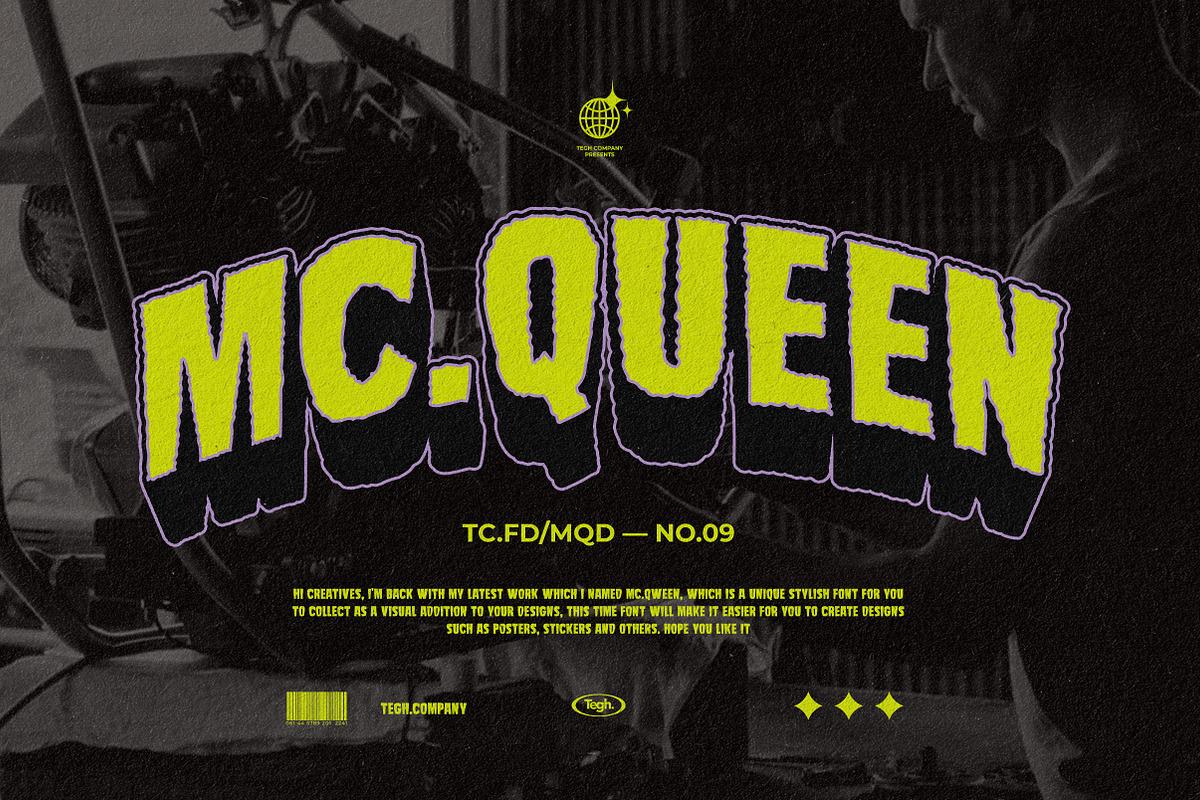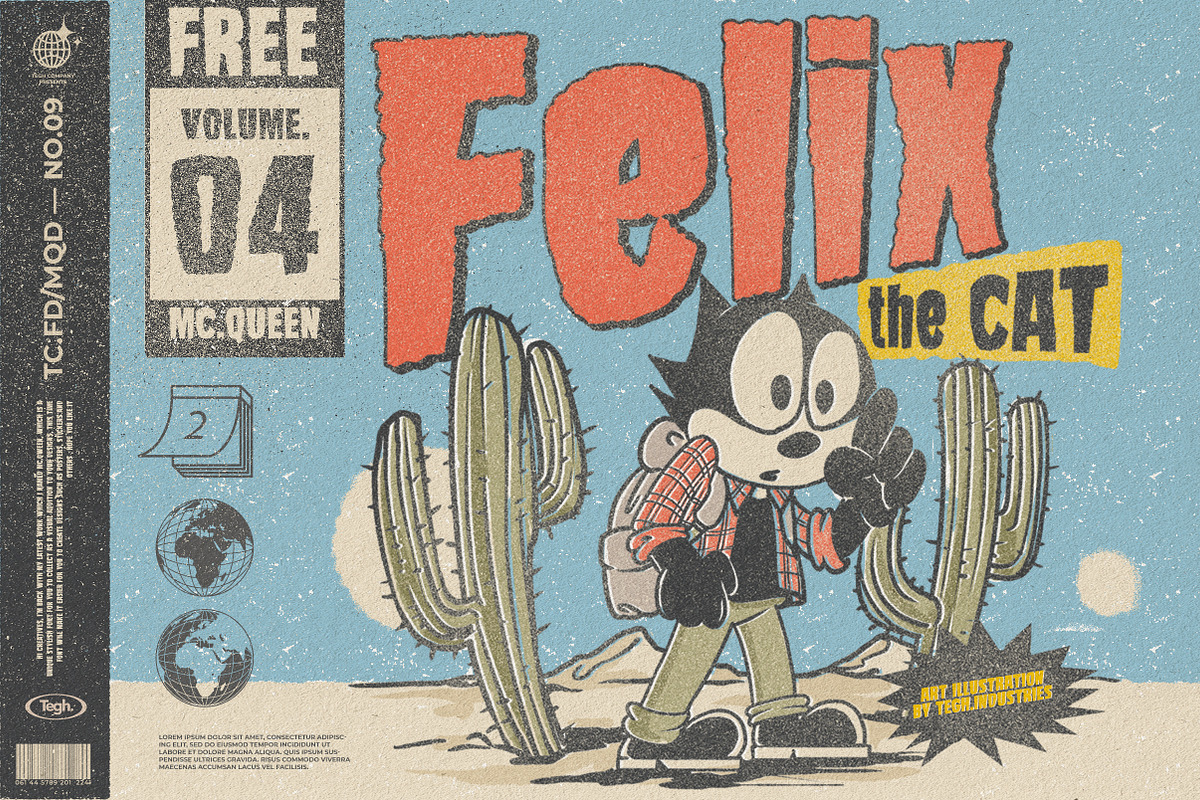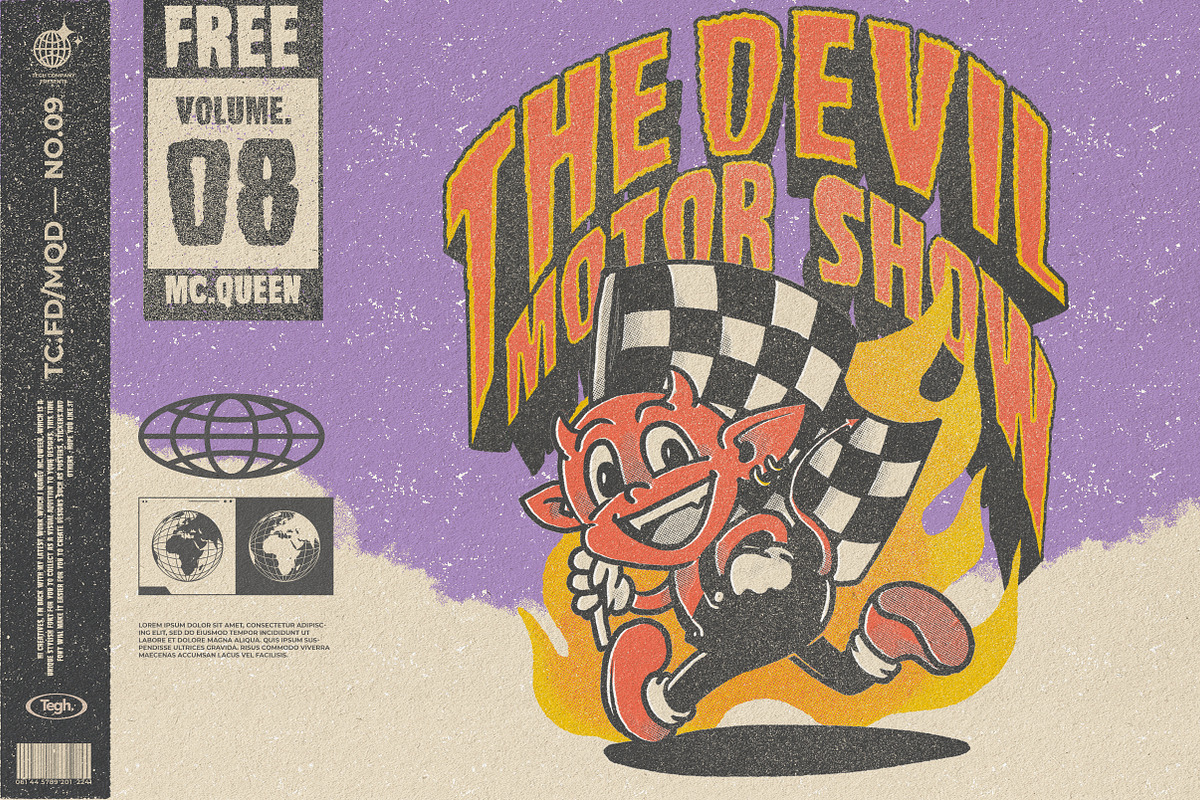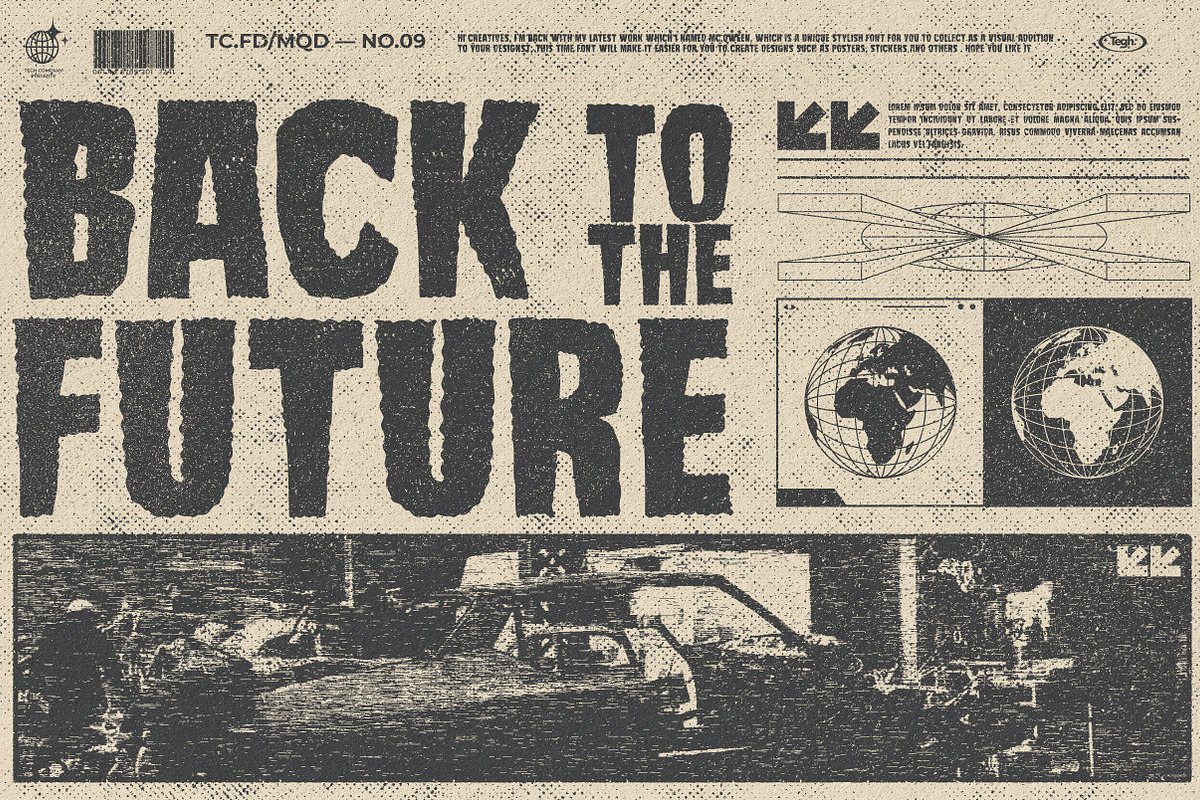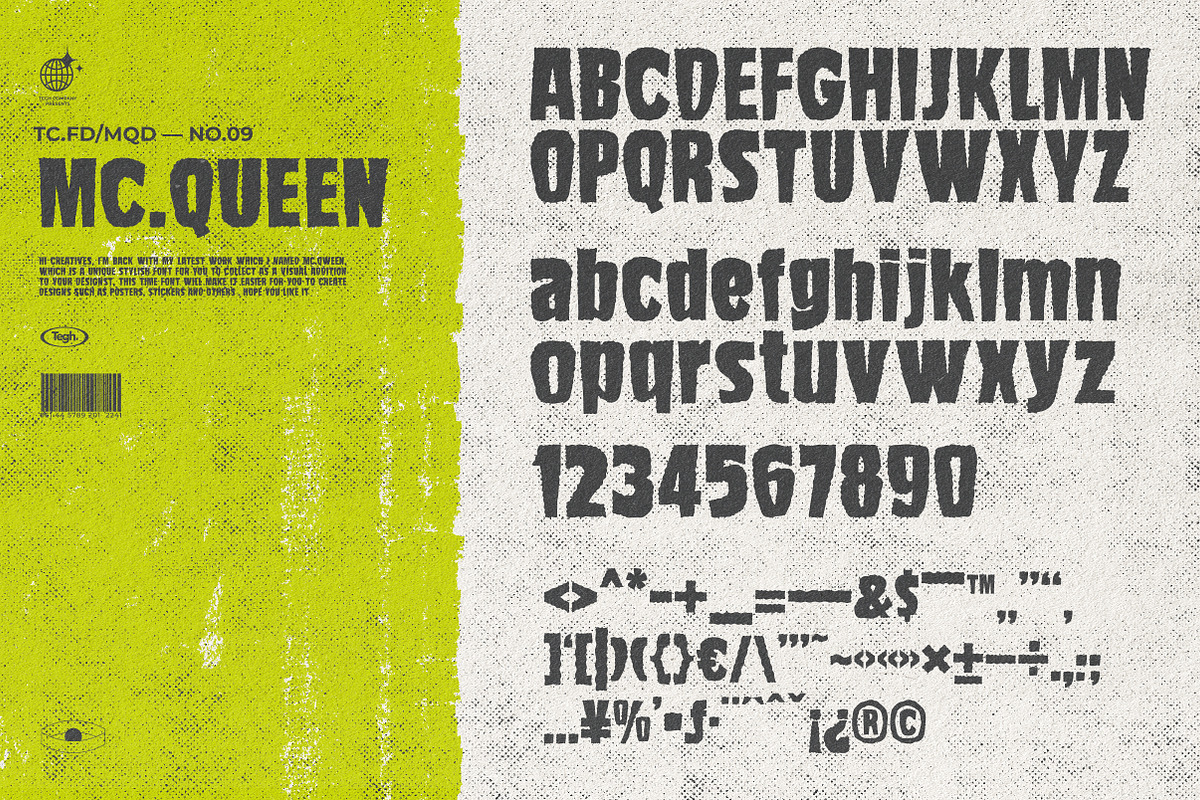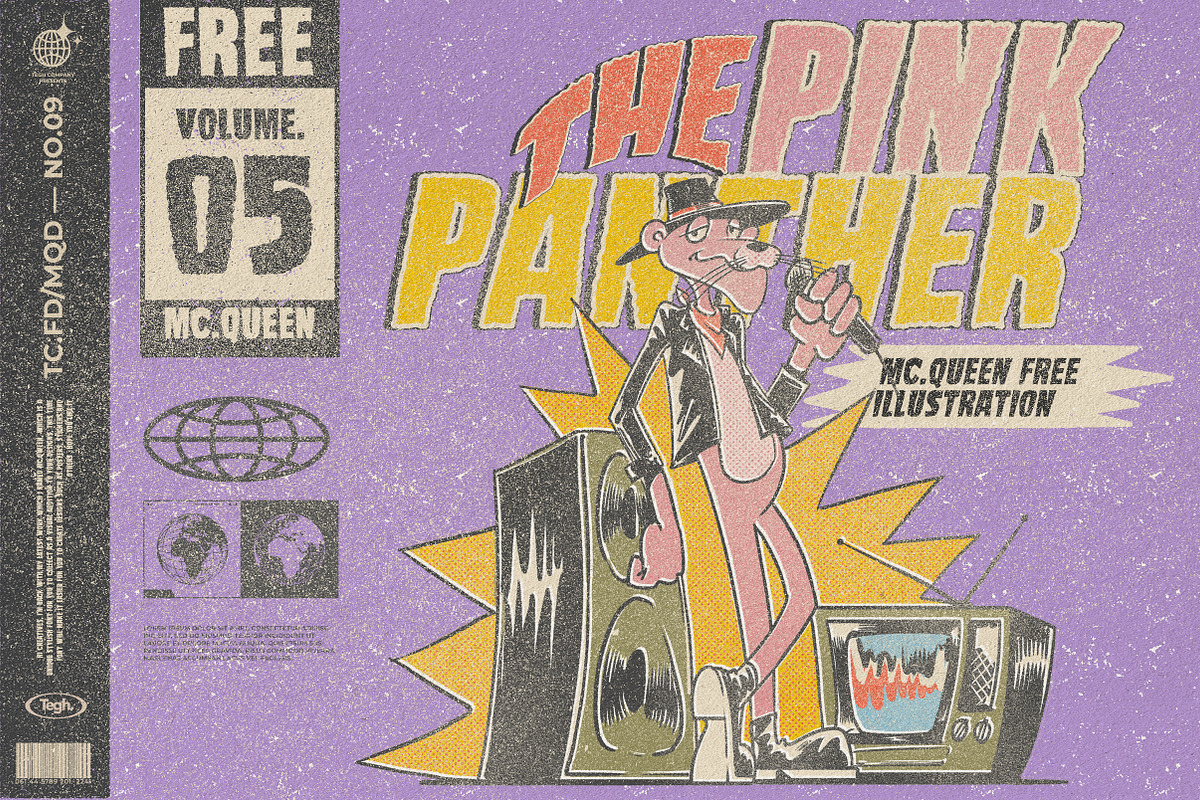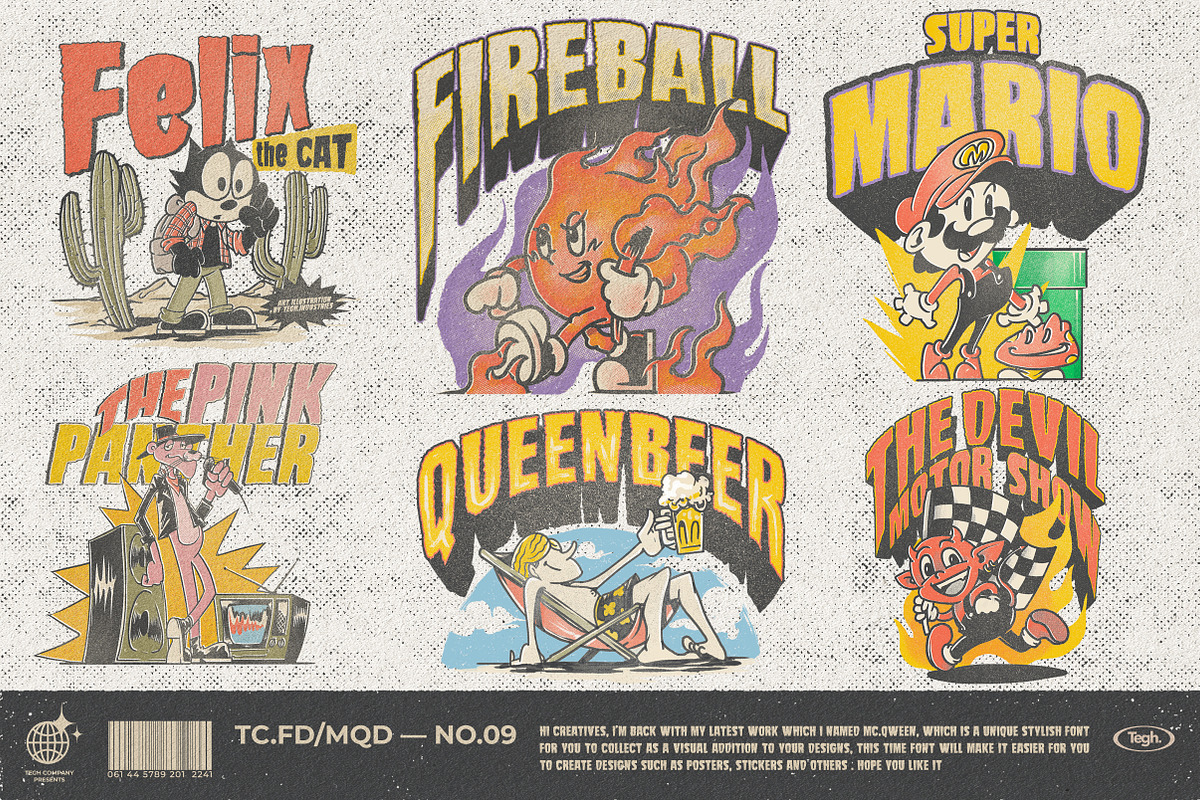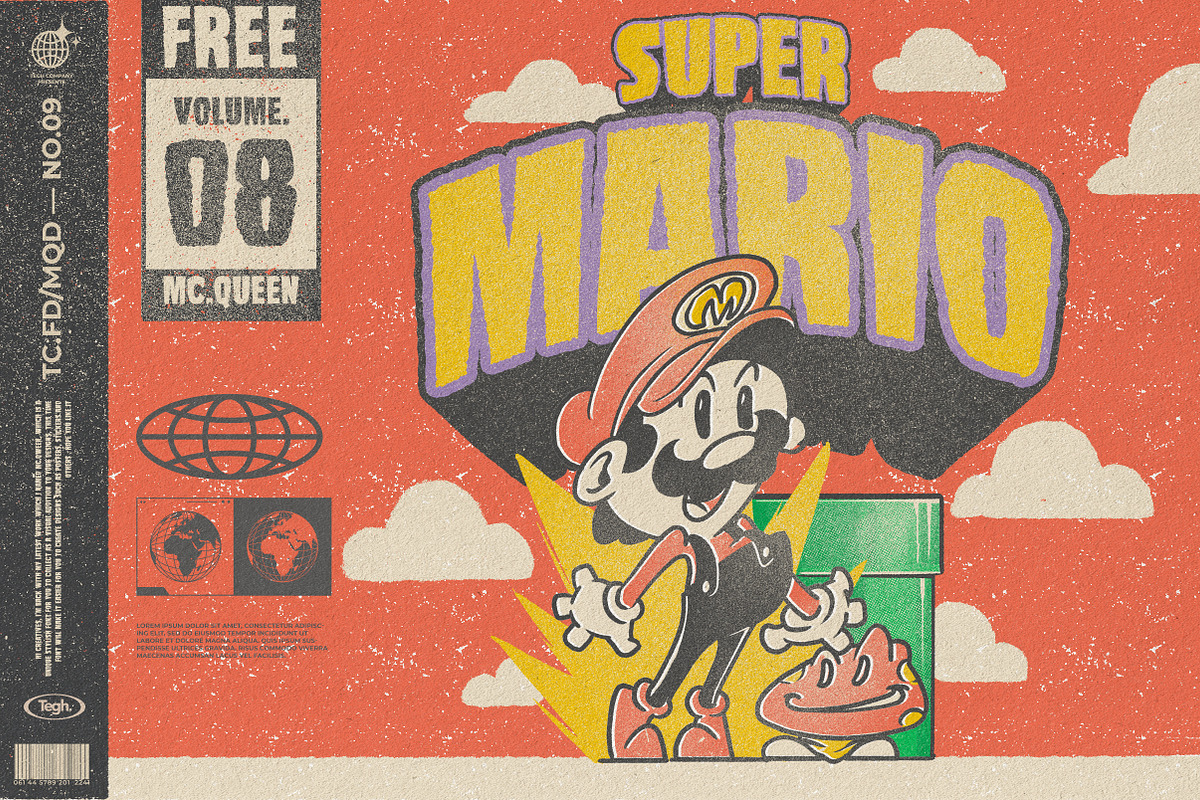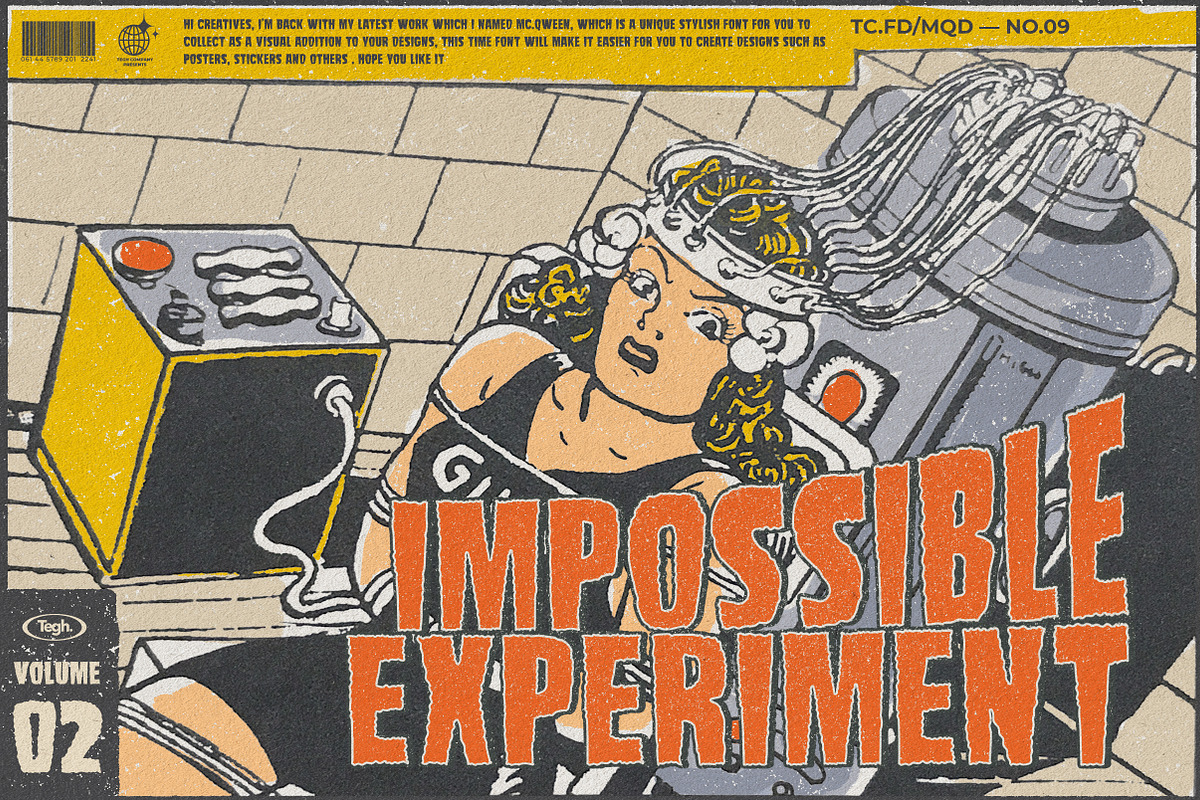
Mc.Queen display font + badge
Hi creatives, I'm back with my latest work which I named mc.qween, which is a unique stylish font for you to collect as a visual addition to your designs, this time font will make it easier for you to create designs such as posters, stickers and others. hope you like it